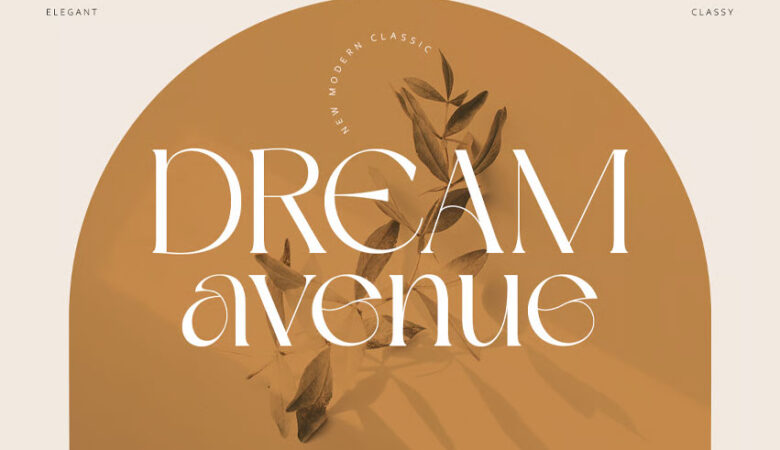
Necmato Font
Necmato Font is an all capital classic, and looking like an elegant font giving it a classy outlook. It is available in two variants: regular and italic to fit your design needs.. The Necmato font can be utilized for any attempt: reflecting the Art Deco period or admitting the contemporary style.
Whether you are designing logos or prints, creating a collage work, setting a body text and many more, Necmato boasts of a simple neo subliminal design that gives your work a cool touch of modern vintage look. Because of this it is one of my favorite styles to include to my work to give it a touch of class.